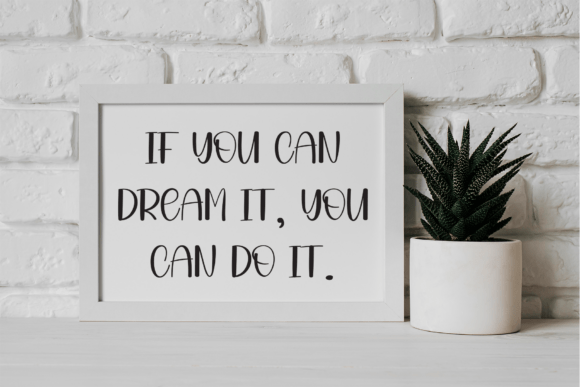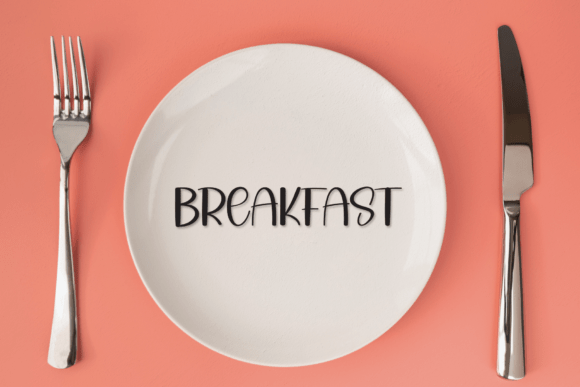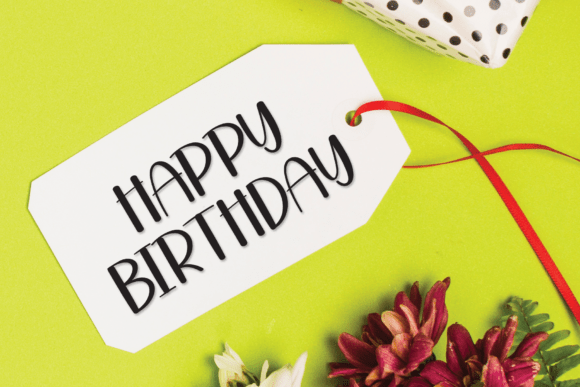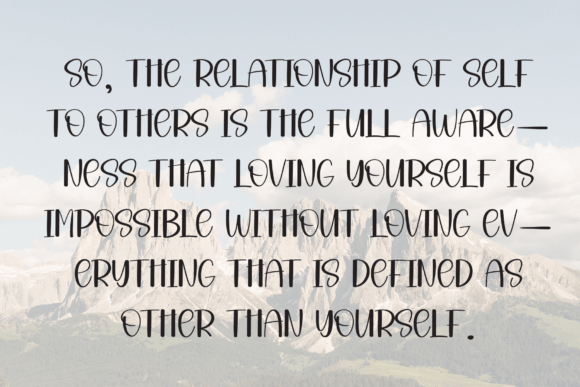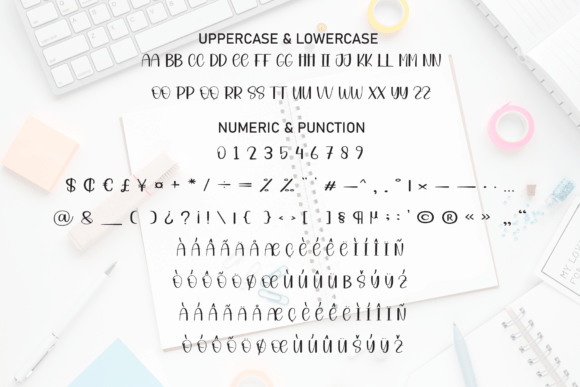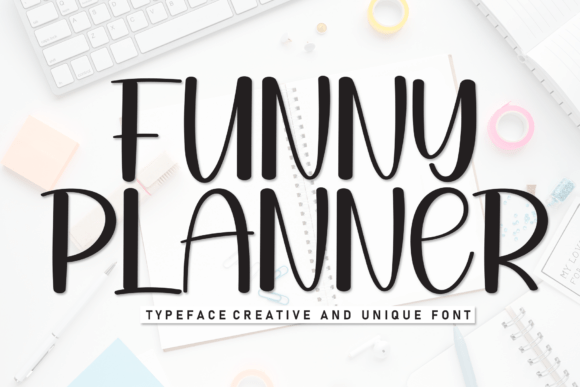
Introducing the Funny Planner Font: Elevate Your Designs with a Touch of Whimsy
Are you tired of using the same old fonts in your designs? Do you want to add a dash of personality and whimsy to your projects? Look no further than the Funny Planner Font! This delightful font is perfect for designers and crafters who want to create unique and eye-catching designs that stand out from the crowd.
What Makes the Funny Planner Font So Special?
The Funny Planner Font is a special creative product that is designed to give you an extraordinary experience. With its latest style letters, this font is perfect for a wide range of applications, including wall displays, wedding invitations, social media post logos, advertisements, product packaging, product designs, labels, photography, watermarks, invitations, stationery, and any project that requires tasteful handwriting.
The Funny Planner Font is incredibly versatile, making it perfect for a wide range of design projects. Here are just a few ideas to get you started:
- Create stunning wall displays and posters that grab attention
- Design beautiful wedding invitations and save-the-date cards
- Elevate your social media posts with eye-catching logos and graphics
- Develop unique product packaging and branding that stands out
- Add a personal touch to your product designs and labels
- Enhance your photography with stylish watermarks and overlays
- Design gorgeous invitations and stationery for any occasion
Why Choose the Funny Planner Font?
So why choose the Funny Planner Font over other fonts on the market? Here are just a few reasons:
- Unique and whimsical design: The Funny Planner Font has a one-of-a-kind design that’s sure to add a touch of personality to your projects
The Funny Planner Font is perfect for designers and crafters who want to take their projects to the next level. Whether you’re a professional designer or a DIY enthusiast, this font is sure to inspire your creativity and help you create stunning designs that impress.
In conclusion, the Funny Planner Font is a must-have for designers and crafters who want to add a touch of whimsy and personality to their projects. With its unique design, high-quality file, and ease of use, this font is perfect for a wide range of applications. So why wait? Get your hands on the Funny Planner Font today and start creating extraordinary designs that stand out from the crowd!